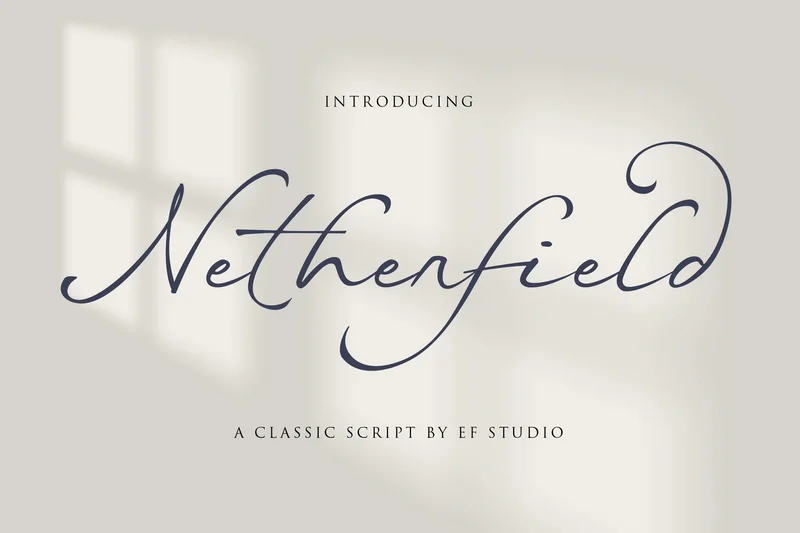
Netherfield
Netherfield is a classic script font that brings timeless elegance and refined charm to your designs. Inspired by eighteen century manuscript, Netherfield has unique stem and form that show antique feels. With its smooth curves and graceful letterforms, it’s perfect for wedding invitations, branding, editorial projects, and signature-style logos. A versatile typeface that blends traditional sophistication with modern usability.